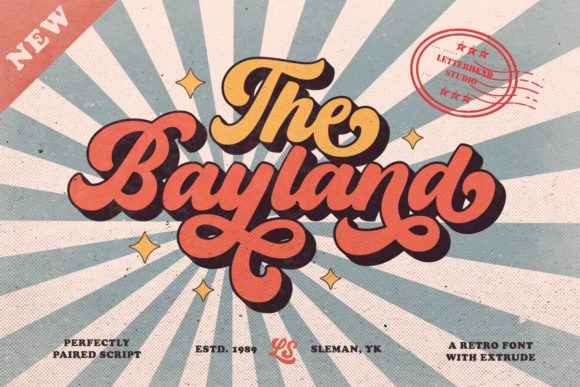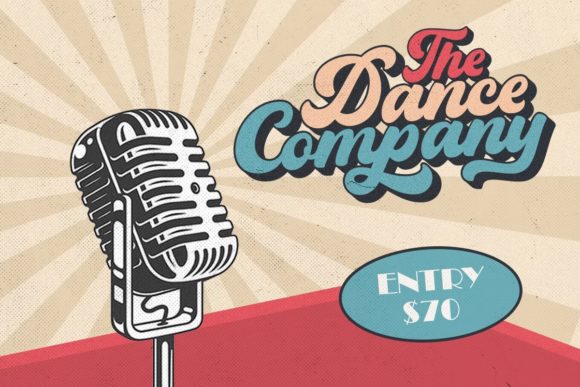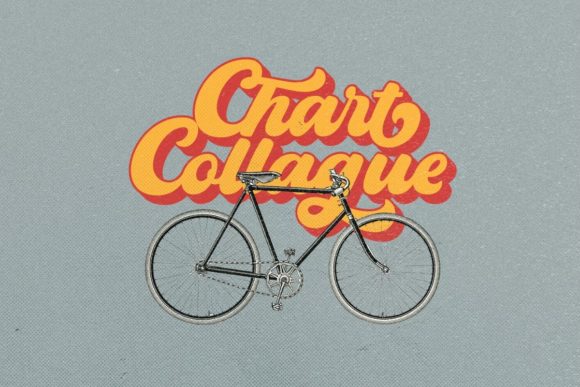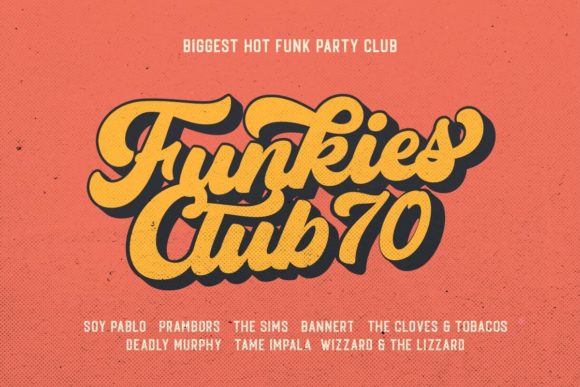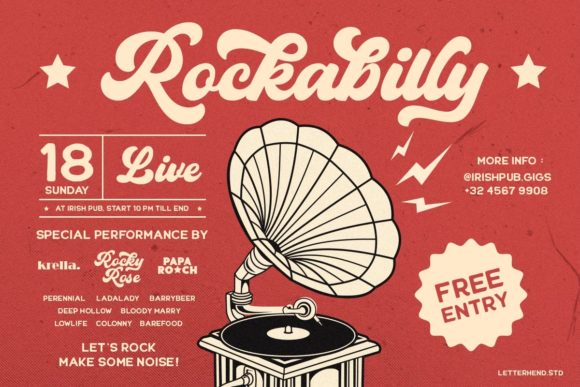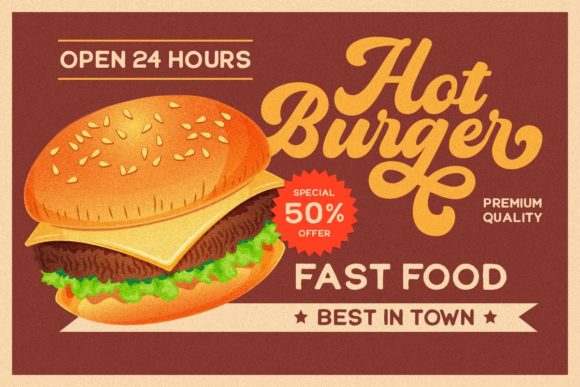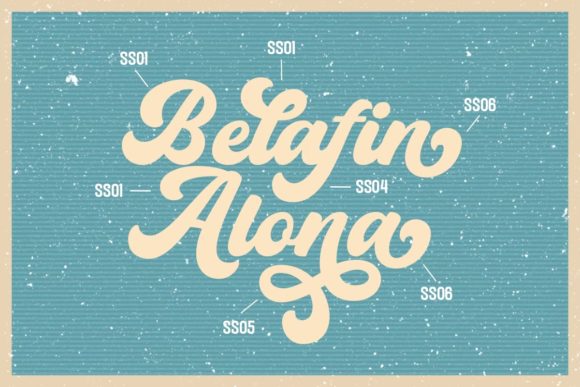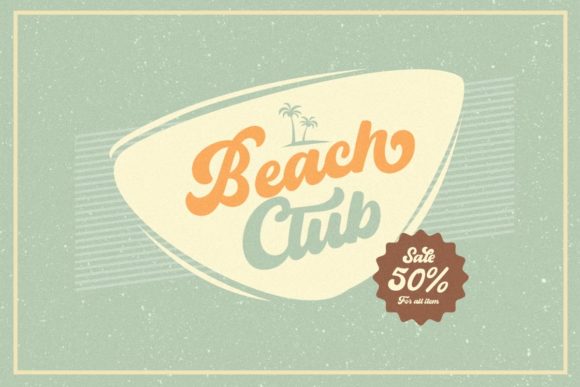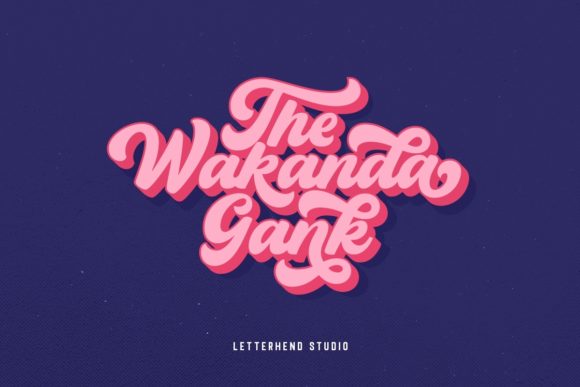
The Bayland Font
The Bayland feels playfully nostalgic and delivers an incredible vintage aesthetic. Use this display font to add that special retro touch to any design idea you can think of!